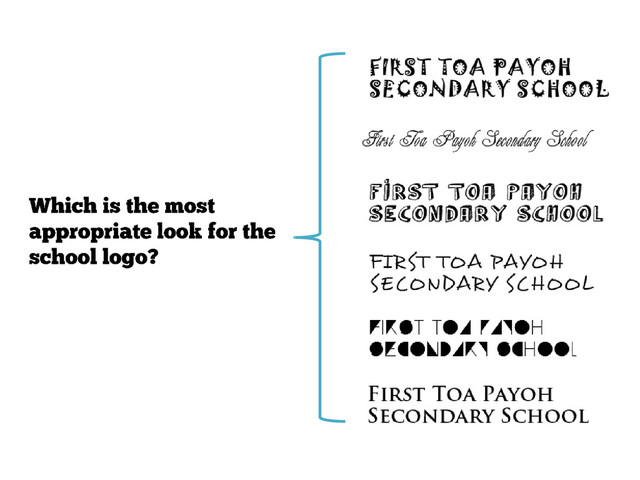
A quick deck on why typefaces are important in design.
A font is a set of printable or displayable text
characters in a specific style and size
Typefaces convey an emotion. They link related ideas. They make
reading more pleasant.
Typefaces convey an emotion.
They link related ideas.
They make reading more pleasant.